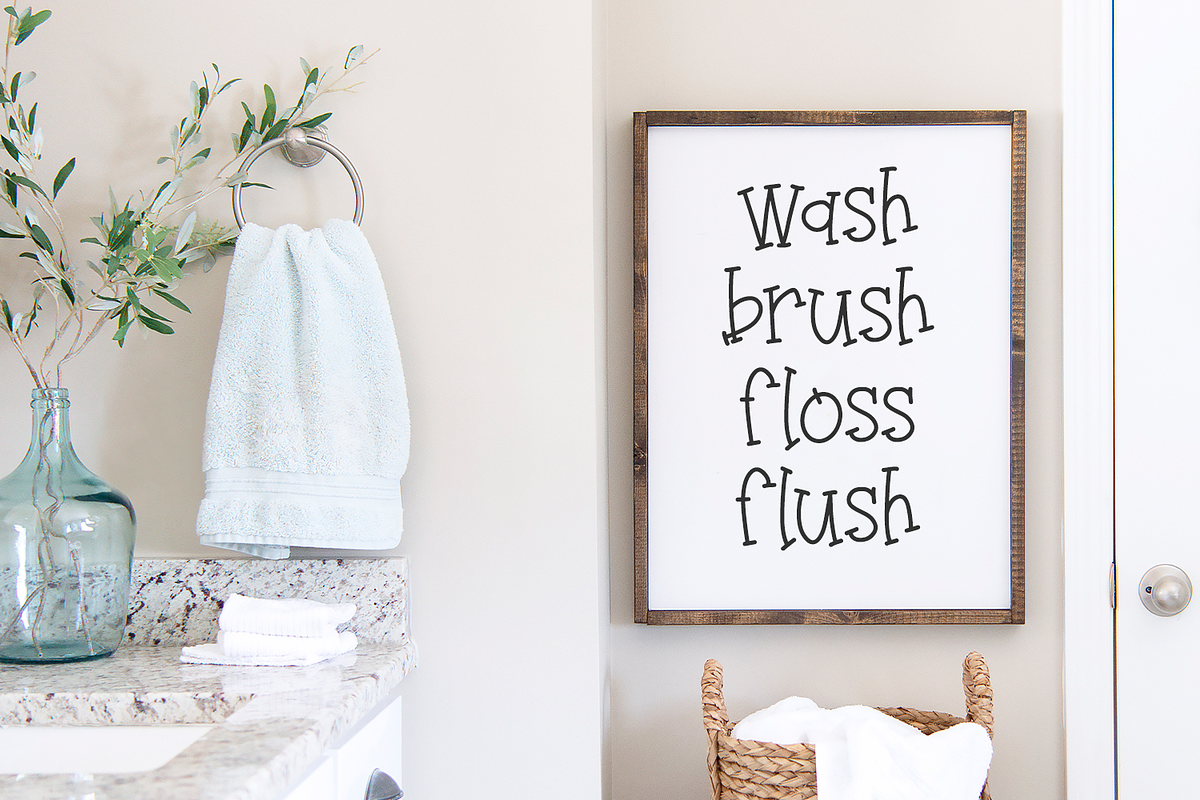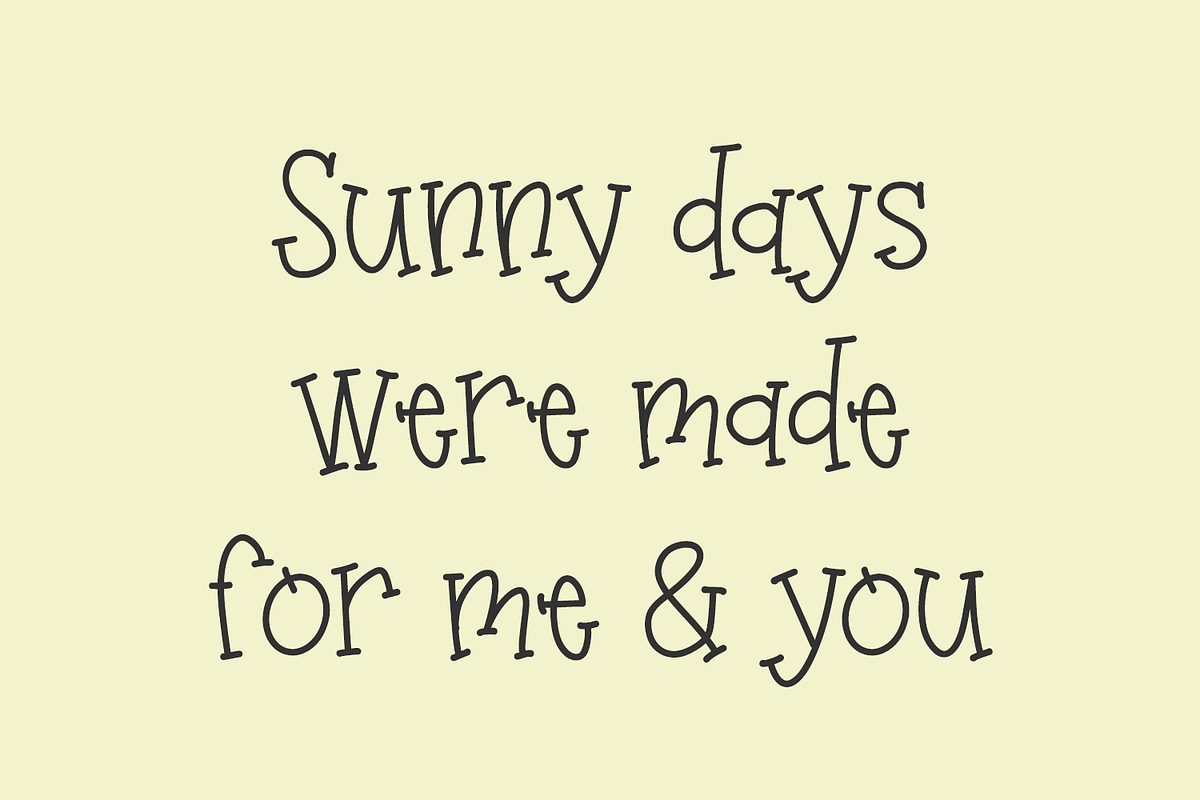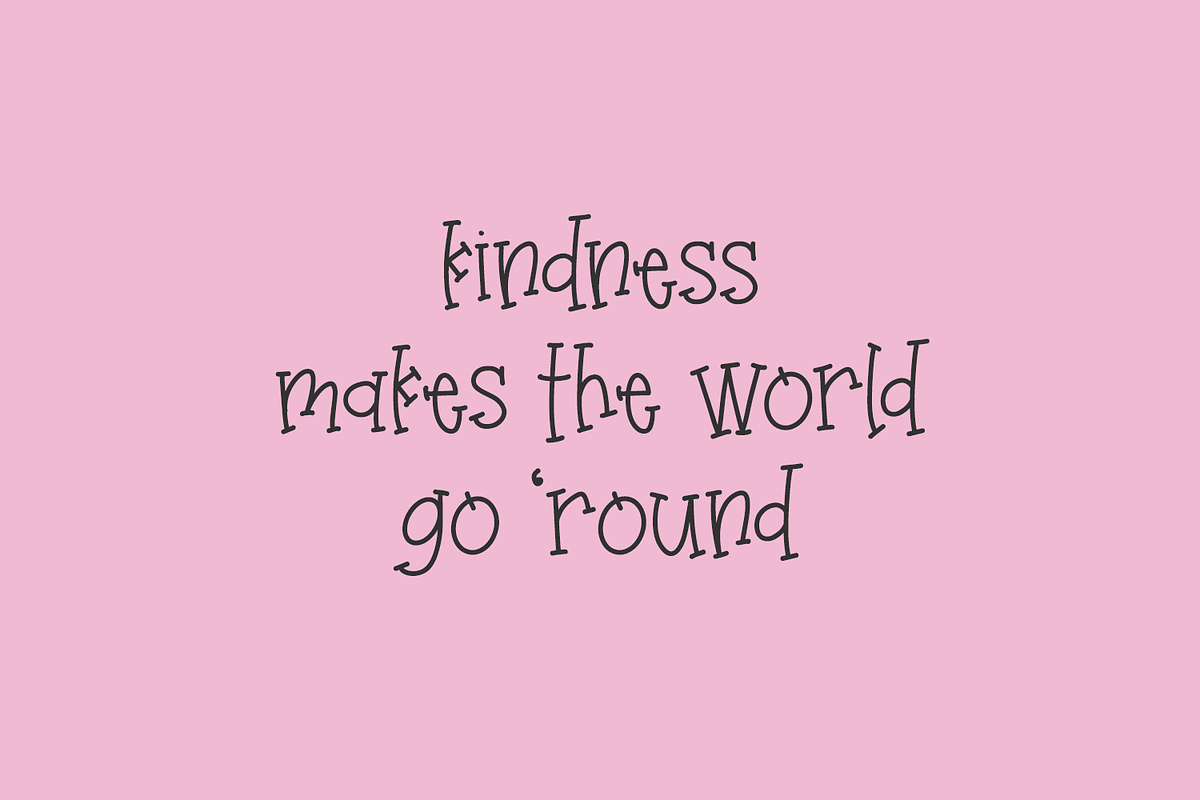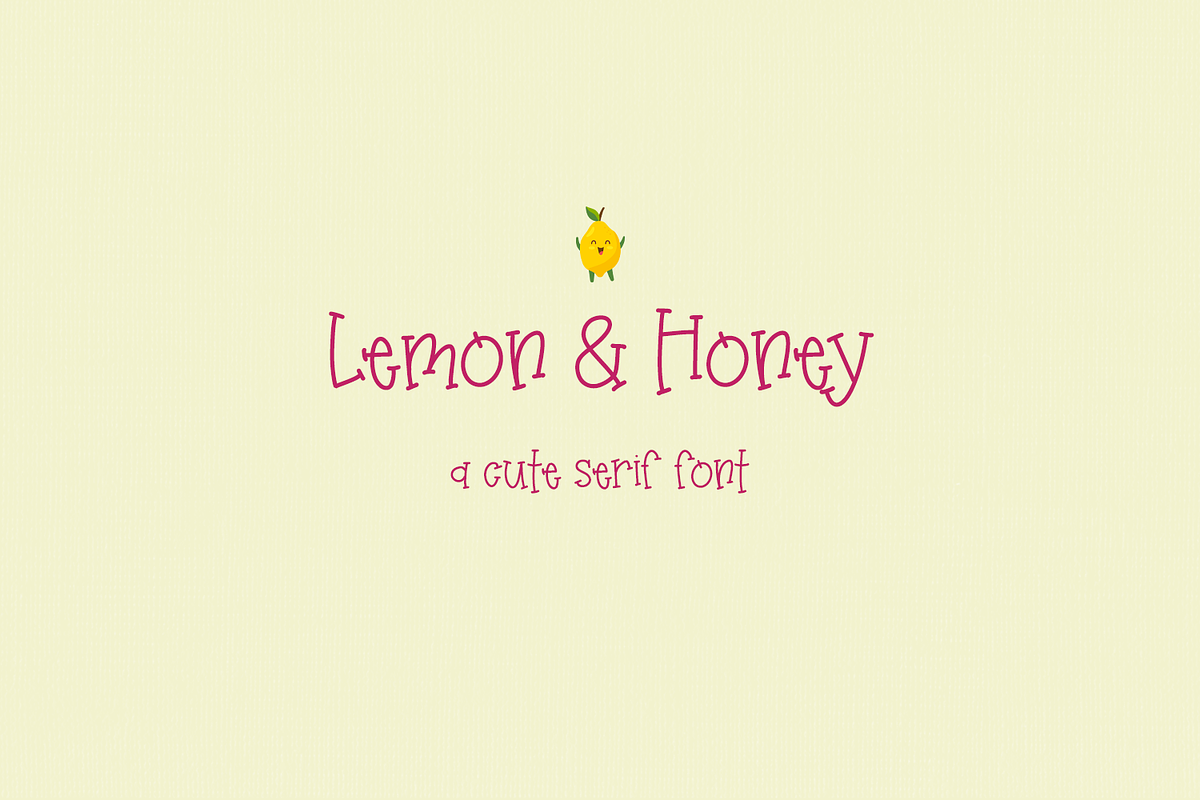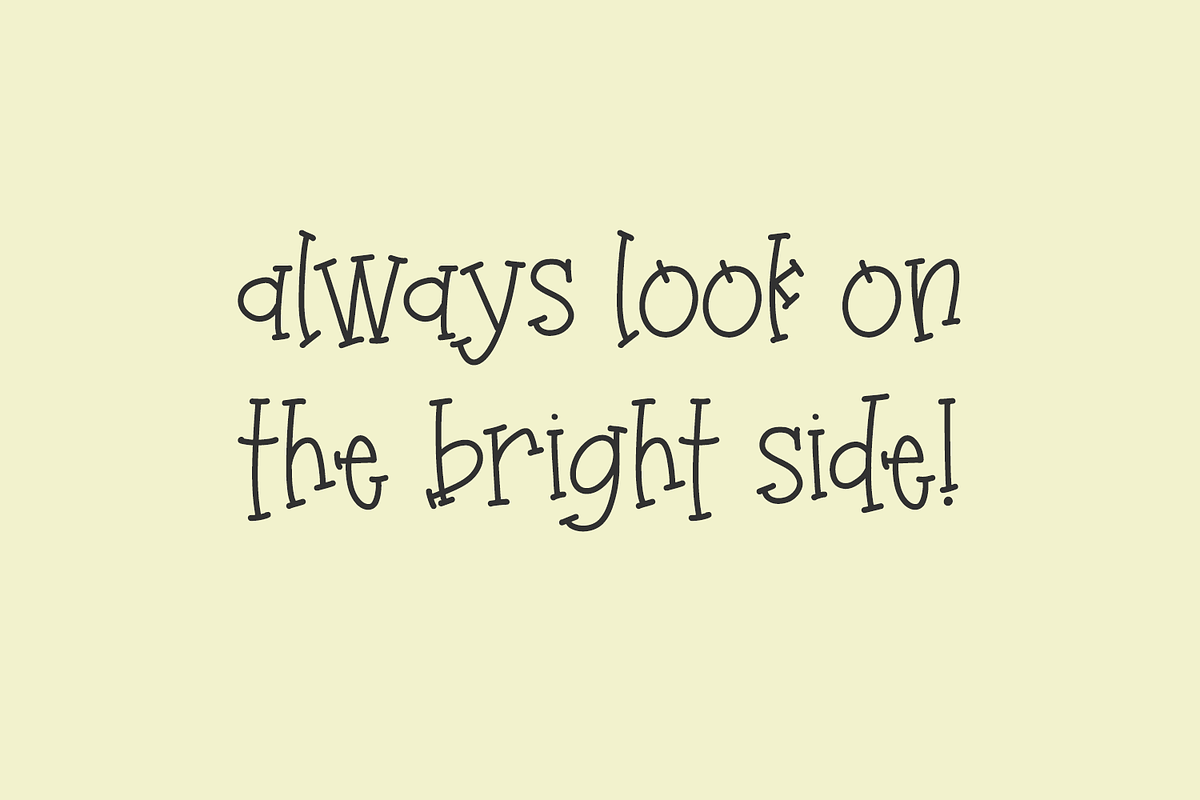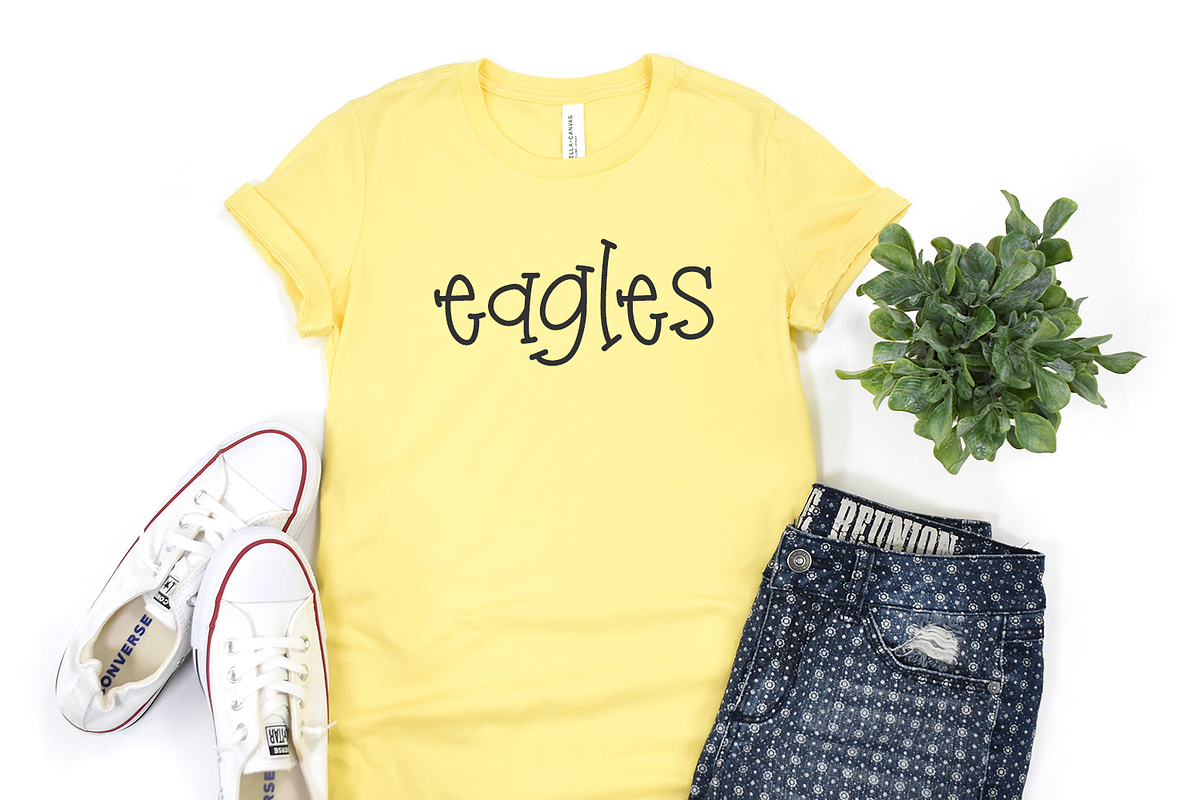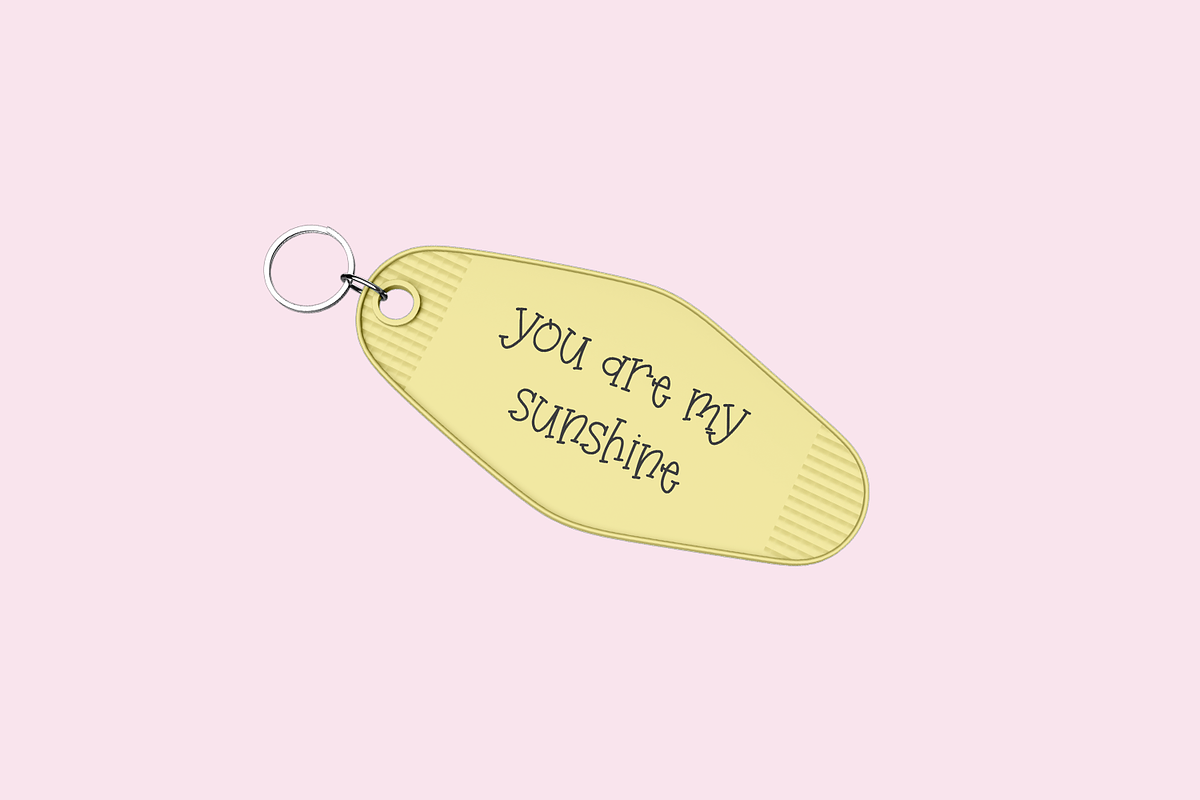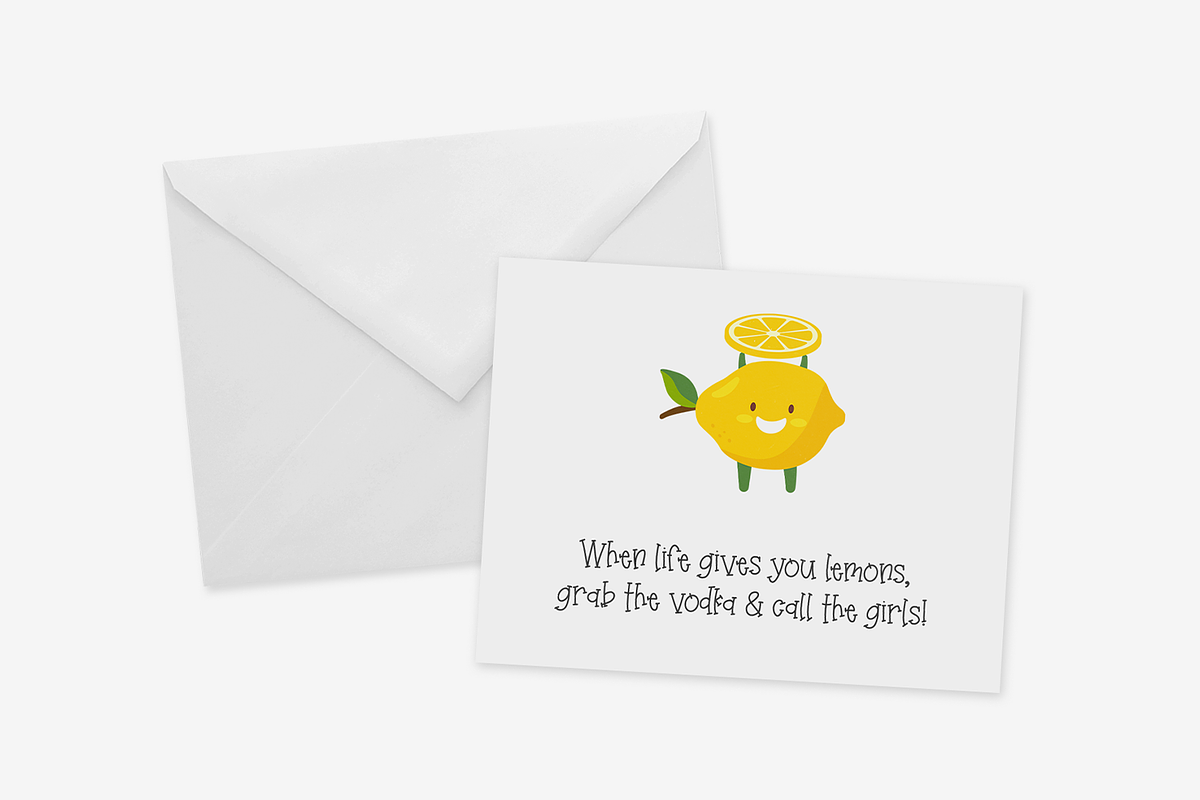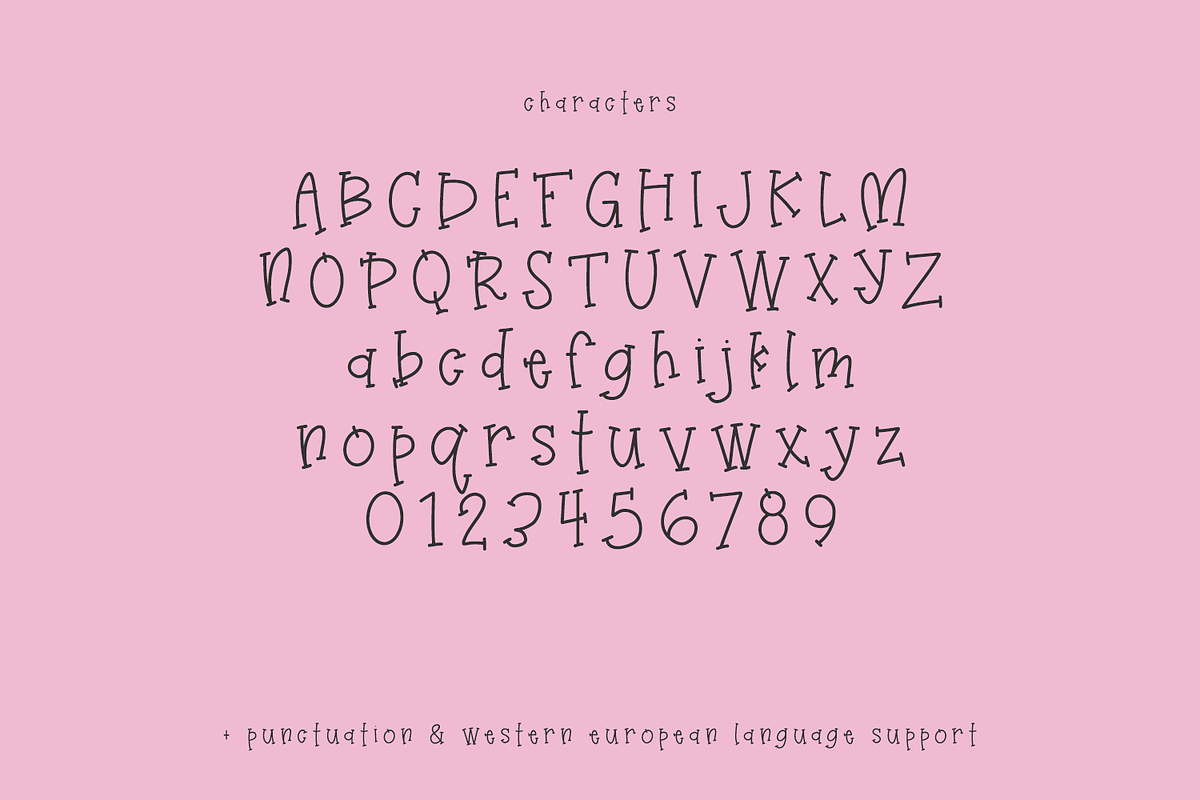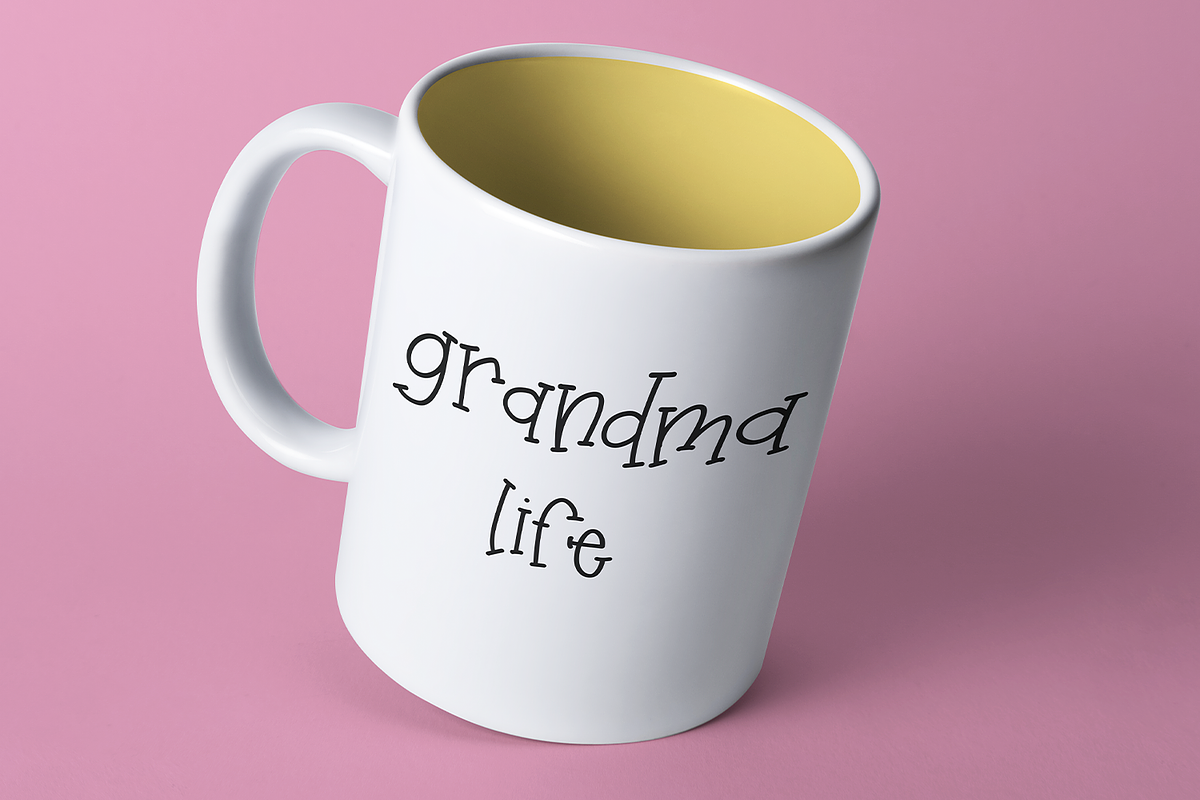
Lemon & Honey Serif
Say hello to Lemon & Honey Serif, an adorable hand lettered serif font. Lemon & Honey is super cute & whimsical. This serif font is perfect for crafting projects with your Cricut or Silhouette machine. Design shirts, keychains, paper products, and more using this font.
Lemon & Honey Serif includes:
- full upper + lowercase characters
- numbers + punctuation
- Western European language support - English, French, Spanish, Portuguese (Brazil), Portuguese (Portugal), Italian, German (Germany), German (Austria), Dutch, Danish, Swedish, Norwegian (Bokmål and Nynorsk), Finnish, Icelandic, Irish, Welsh